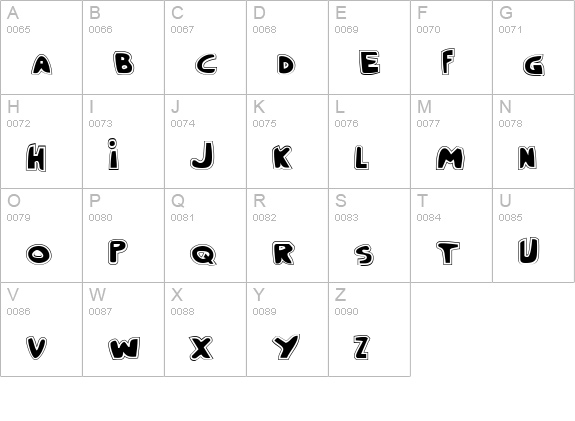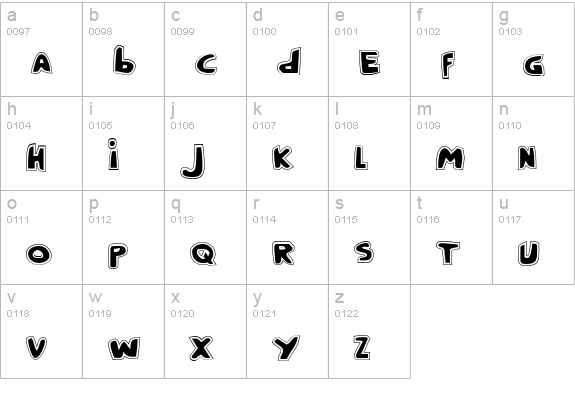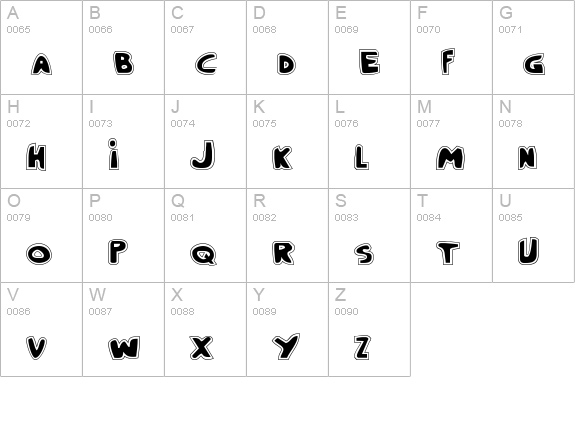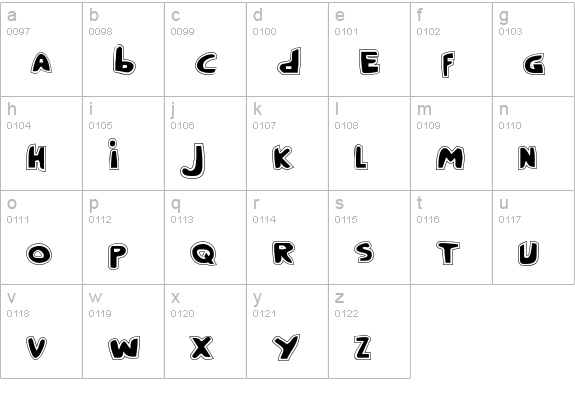
Introducing the Crappity-Crap-Crap Pro font, a whimsical and playful typeface that is sure to add a touch of fun to your creative projects. This font features quirky characters with a hand-drawn feel, making it perfect for designs that need a unique and charming touch. Whether you're working on a poster, greeting card, or branding project, Crappity-Crap-Crap Pro will bring a sense of whimsy and personality to your work. And the best part? Crappity-Crap-Crap Pro is available for free download at FontsMarket.com! This means you can easily access this delightful font without any cost, making it a fantastic choice for budget-conscious designers and hobbyists alike. Don't miss out on the opportunity to add this fun and versatile font to your collection – download Crappity-Crap-Crap Pro today and let your creativity soar!